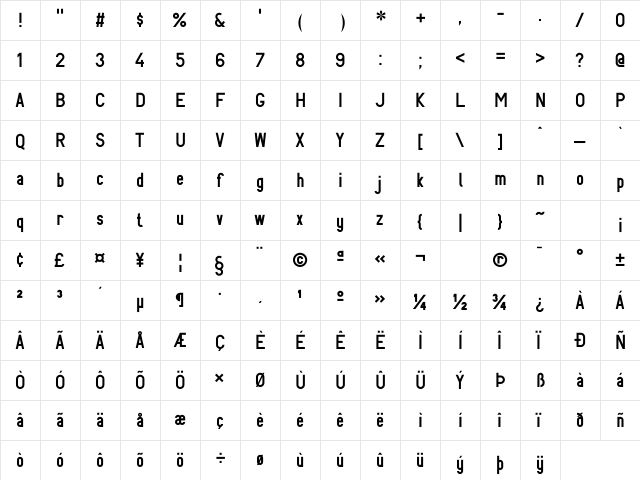
Design Context for BN-67.9010-03 Typeface
BN-67.9010-03 is a composed and adaptable typeface that performs quietly and consistently across a wide range of design contexts.
Pro Tip: Use BN-67.9010-03 in both headline and body roles to test its range before committing to a single application.